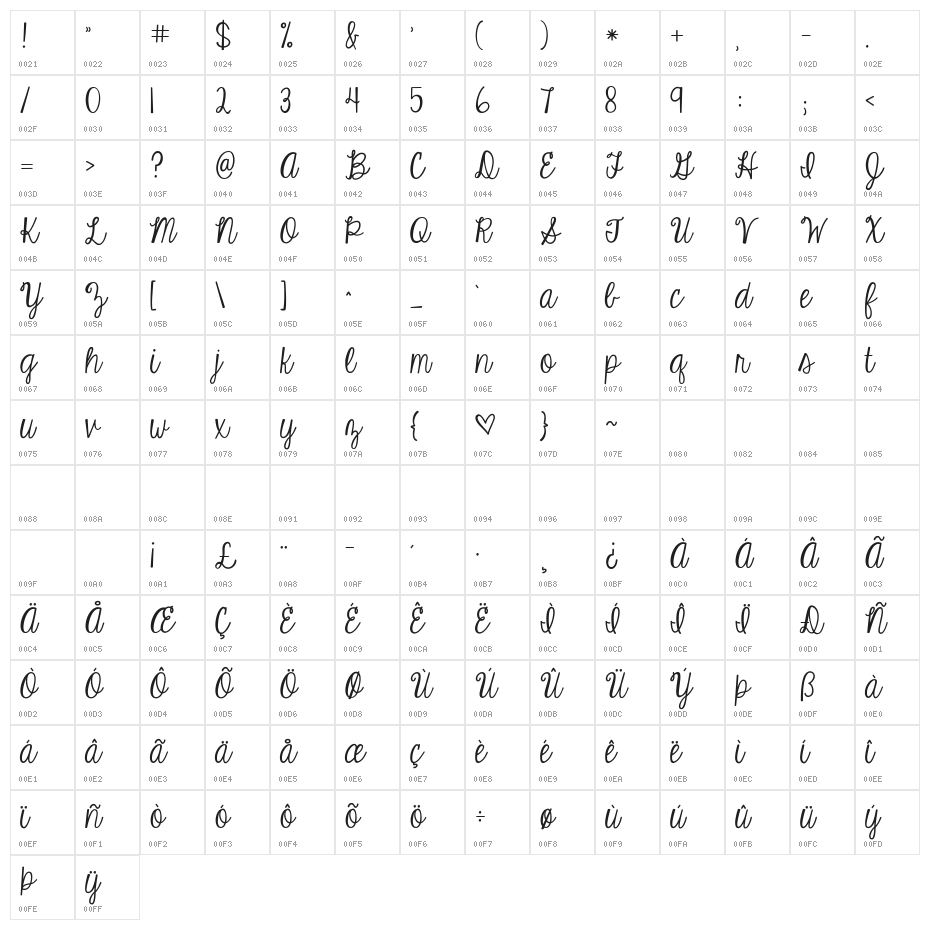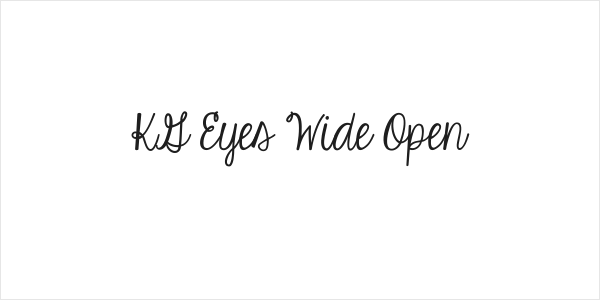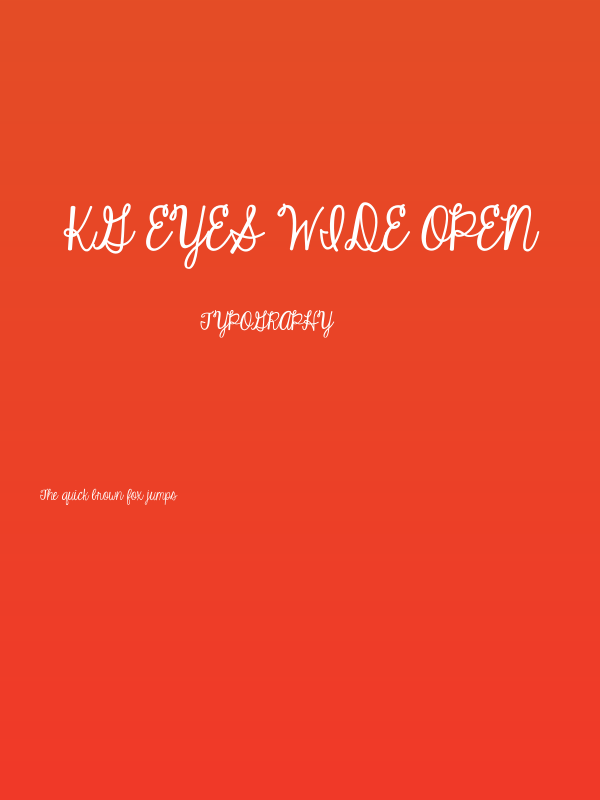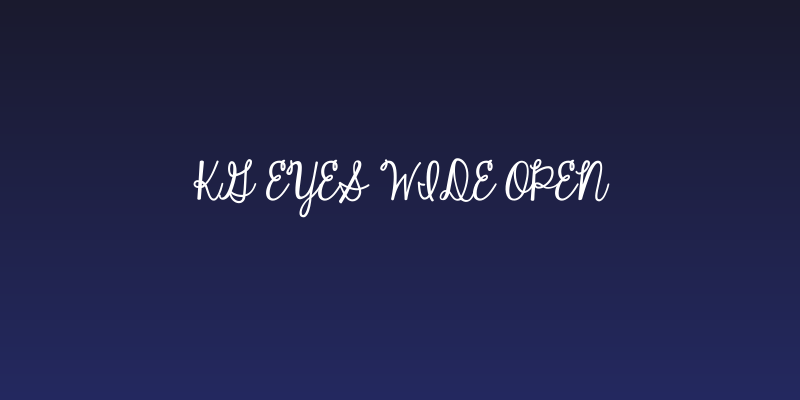
KG Eyes Wide Open Font
KG Eyes Wide Open Description
This font features a playful and whimsical script style, characterized by its flowing, cursive letters that mimic a handwritten aesthetic. The uppercase and lowercase letters are distinct, with a smooth, continuous stroke that adds a sense of movement and elegance. The numerals and special characters maintain the same fluidity, ensuring consistency throughout. The overall appearance is casual yet refined, making it suitable for projects that require a personal touch. The font's design is both approachable and stylish, with a modern twist on traditional script fonts.
| Proposed Projects | Ideal for invitations, greeting cards, personal branding, and creative projects that require a personal, handwritten touch. |